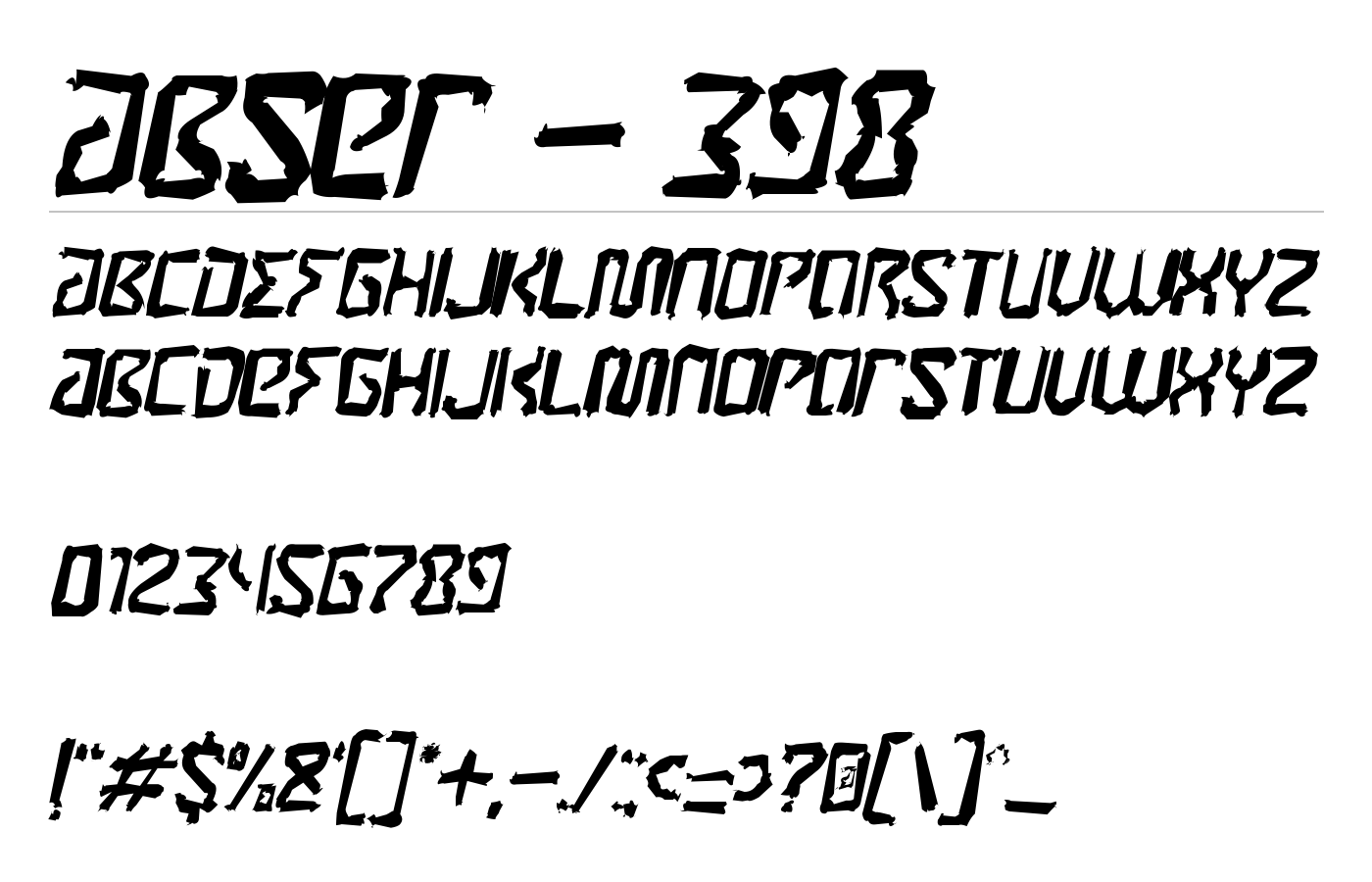
Abser is a bold, condensed sans serif font with a rugged, hand-cut appearance that gives it a raw, edgy personality. Its sharp, irregular strokes and high contrast along with unique angular letterforms make it perfect for striking headlines, logos, or designs needing a strong, rebellious vibe. This font works well in creative and alternative branding where a bold, unconventional look is desired.
Abser Font
About Abser Font